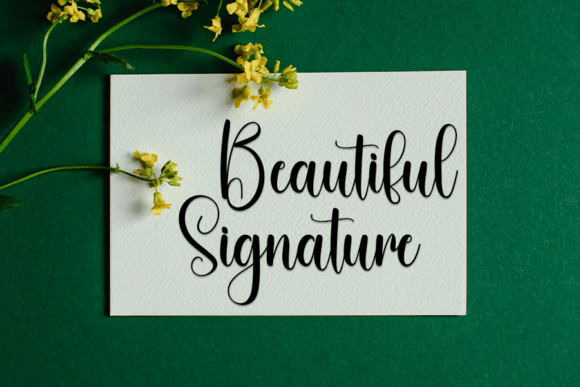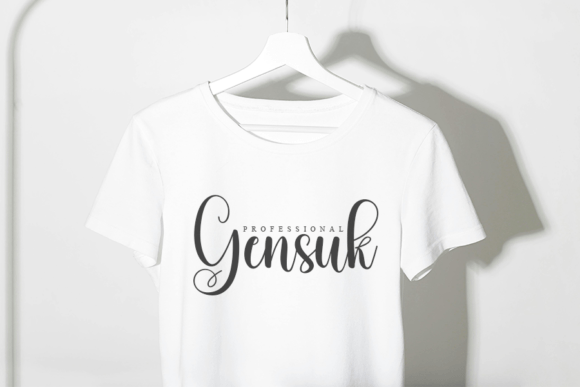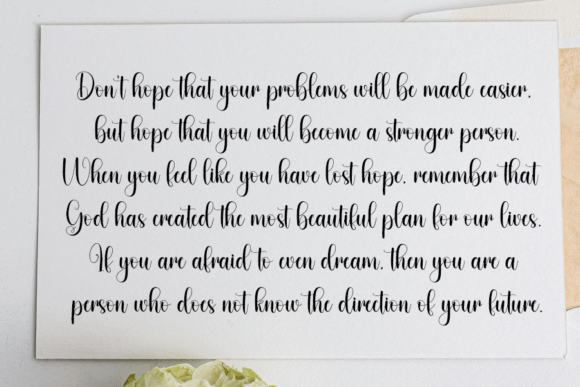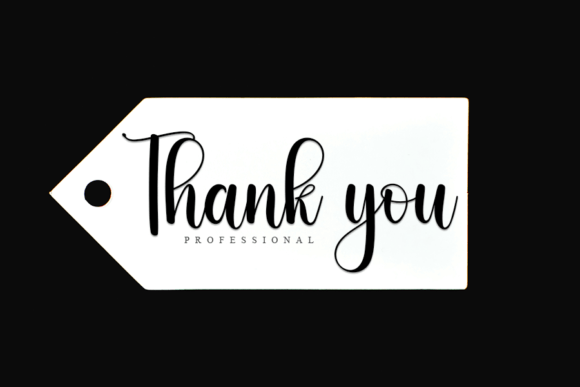
Introducing Chickens Font: A Delicate Handwritten Style for Unique Designs
In the world of typography, fonts play a crucial role in conveying the tone and personality of a brand or design. For designers and crafters looking for a cool and unique style, Chickens Font is an excellent choice. This delicate handwritten font is carefully crafted to add a touch of elegance and sophistication to various design projects.
What is Chickens Font?
Chickens Font is a beautiful, hand-crafted typeface designed to bring a sense of warmth and personality to any design. Its delicate strokes and unique letterforms make it perfect for creating eye-catching titles, invitations, letters, and more. The font’s versatility allows it to be used across various industries, from food and beverage to fashion and lifestyle.
Key Features of Chickens Font
- Delicate Handwritten Style: Chickens Font boasts a beautiful, handwritten style that adds a touch of elegance to any design.
- Unique Letterforms: The font features unique letterforms that set it apart from other typefaces, making it perfect for designers looking for something distinctive.
- Versatile: Chickens Font can be used for a wide range of design projects, including letters, invitations, food products, titles, and more.
- Easy to Read: Despite its delicate nature, Chickens Font is easy to read, making it suitable for body text and headings.
Use Cases for Chickens Font
Chickens Font is an excellent choice for various design projects, including:
- Invitations and Event Materials: Add a touch of elegance to your wedding invitations, birthday party invites, or corporate event materials.
- Food and Beverage Branding: Use Chickens Font to create eye-catching labels, packaging, or menu boards for your food or beverage business.
- Stationery and Letterheads: Elevate your personal or business correspondence with beautifully designed letters and stationery.
- Titles and Headings: Add a unique touch to your blog posts, articles, or website headings with Chickens Font.
Tips for Using Chickens Font Effectively
To get the most out of Chickens Font, consider the following tips:
- Pair with Other Fonts: Combine Chickens Font with other fonts to create a unique contrast and add visual interest to your design.
- Experiment with Colors: Play with different colors to find the perfect match for your design and brand.
- Use for Headings and Titles: Take advantage of Chickens Font’s unique style by using it for headings and titles, and pairing it with a more straightforward font for body text.
Chickens Font is a beautiful, delicate handwritten font that can elevate your designs and add a touch of elegance. Its versatility, unique letterforms, and ease of use make it an excellent choice for designers and crafters looking for a cool and unique style. Whether you’re working on invitations, food products, titles, or more, Chickens Font is sure to impress.